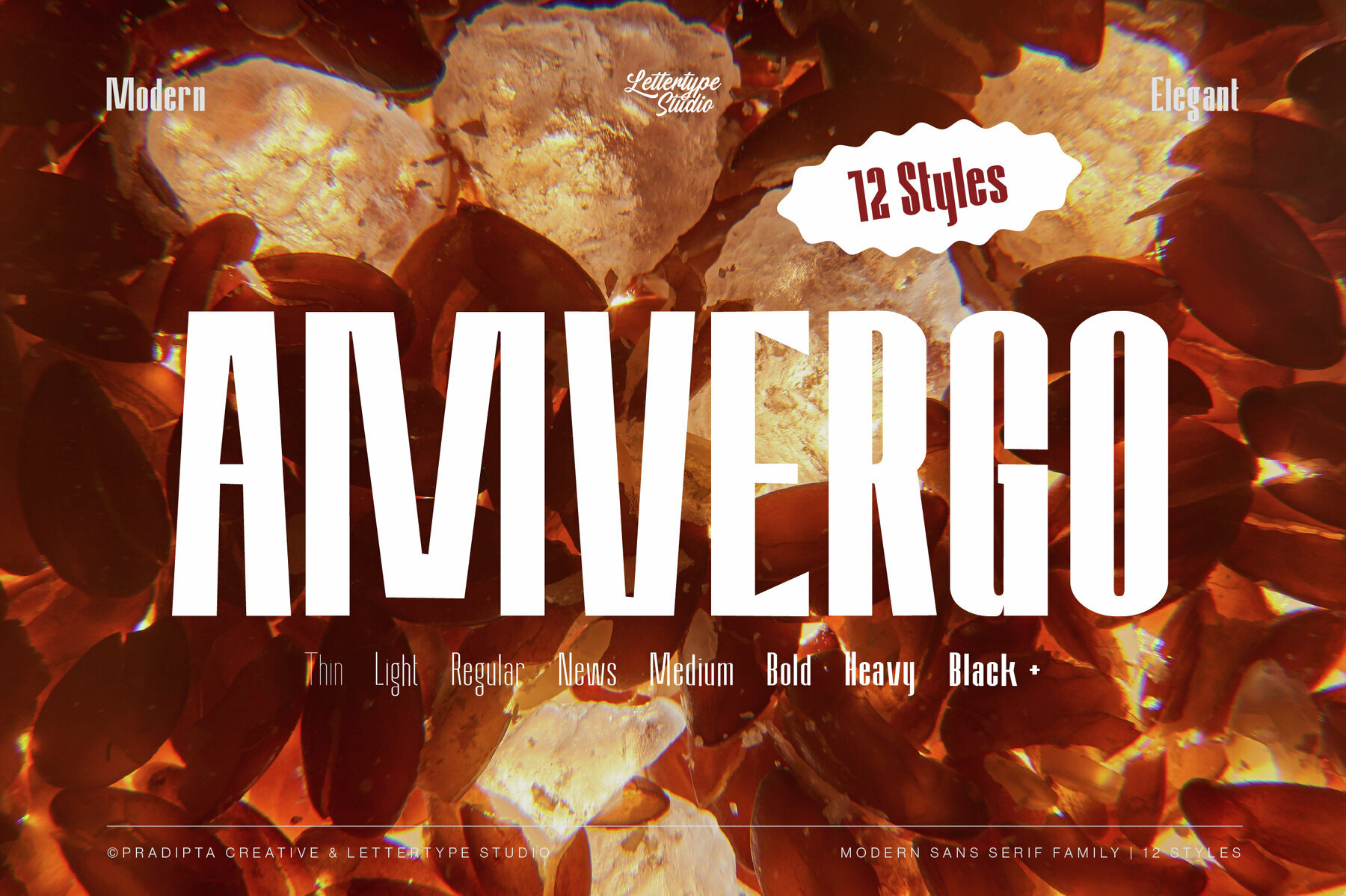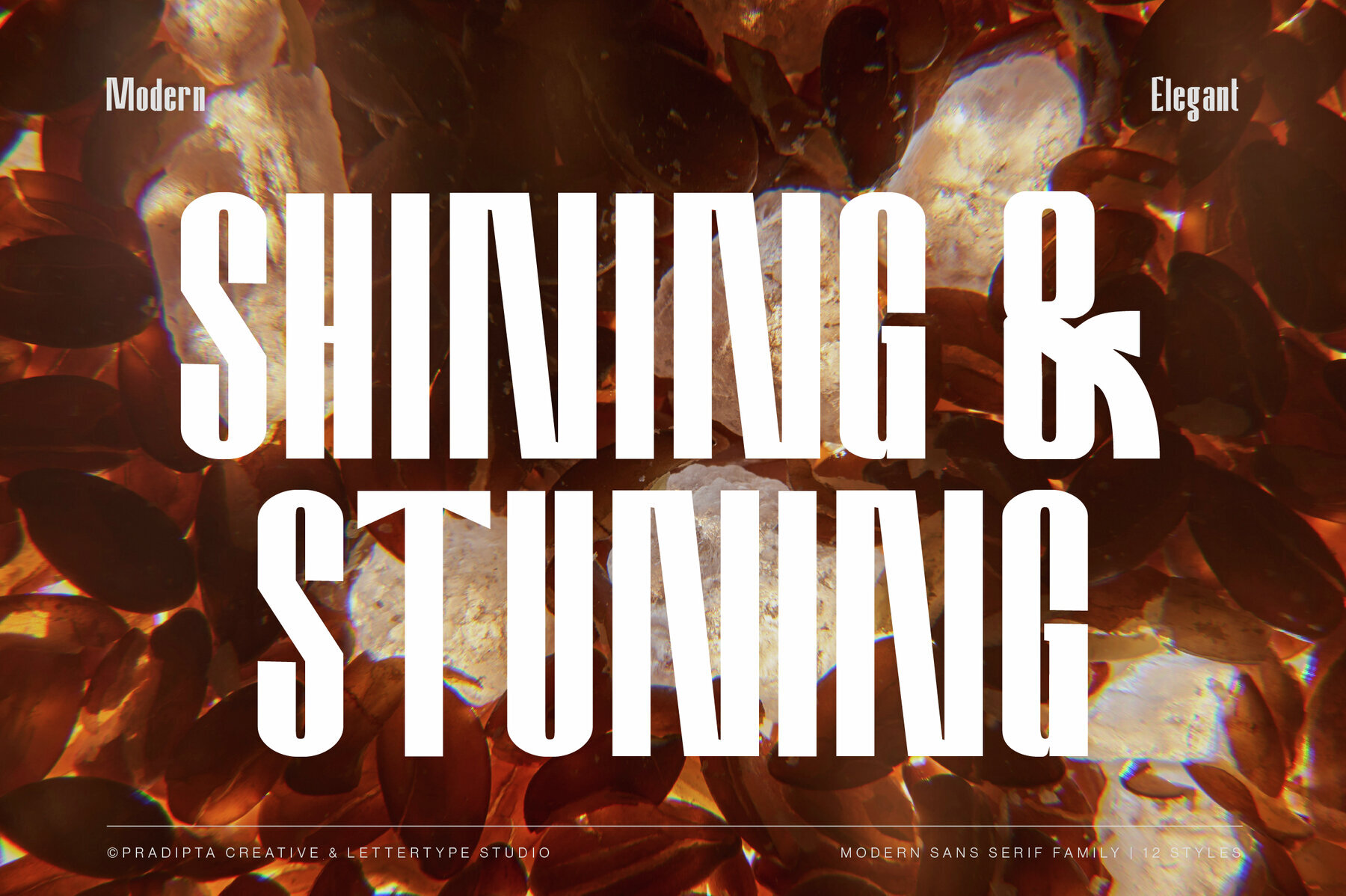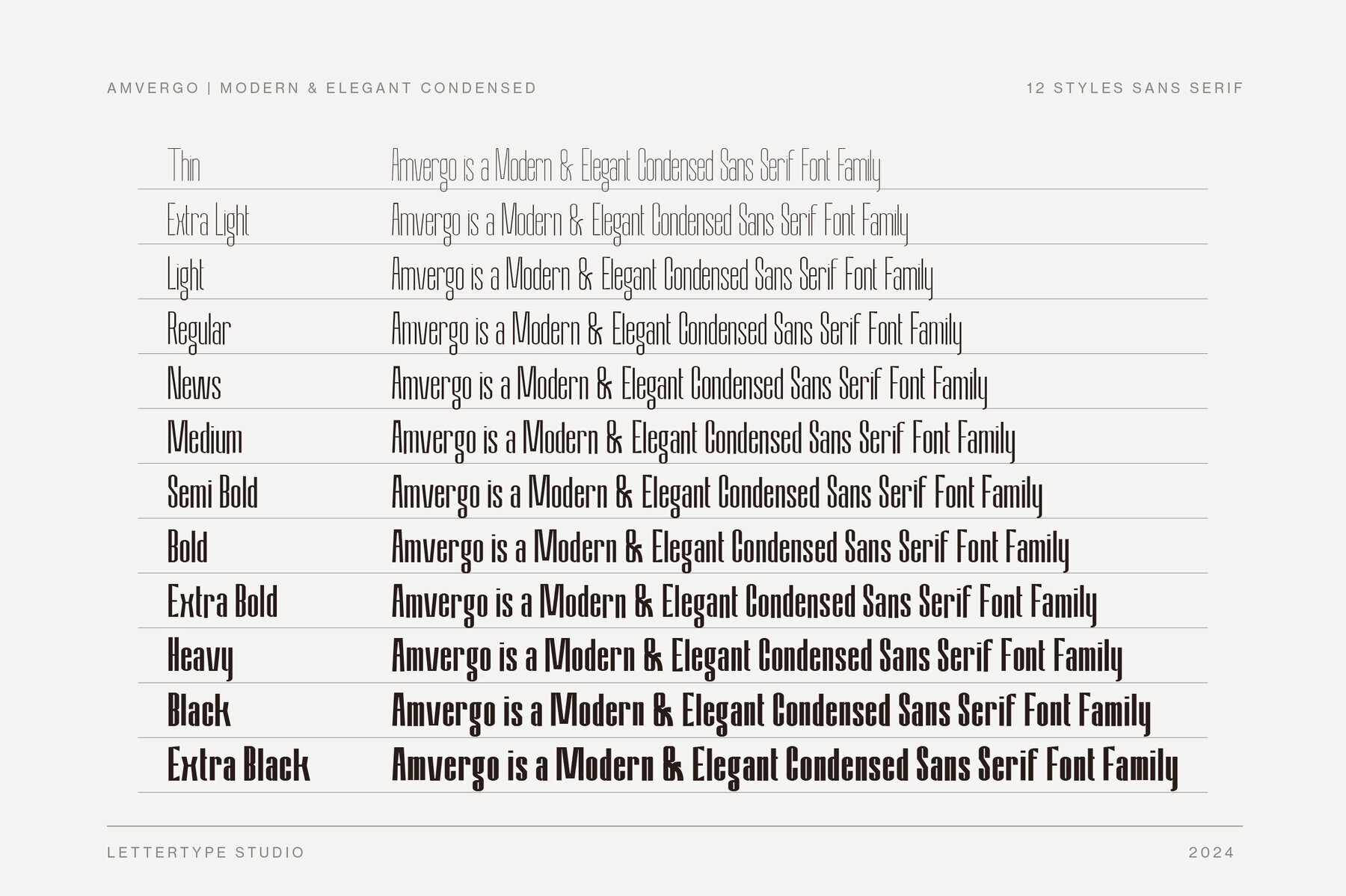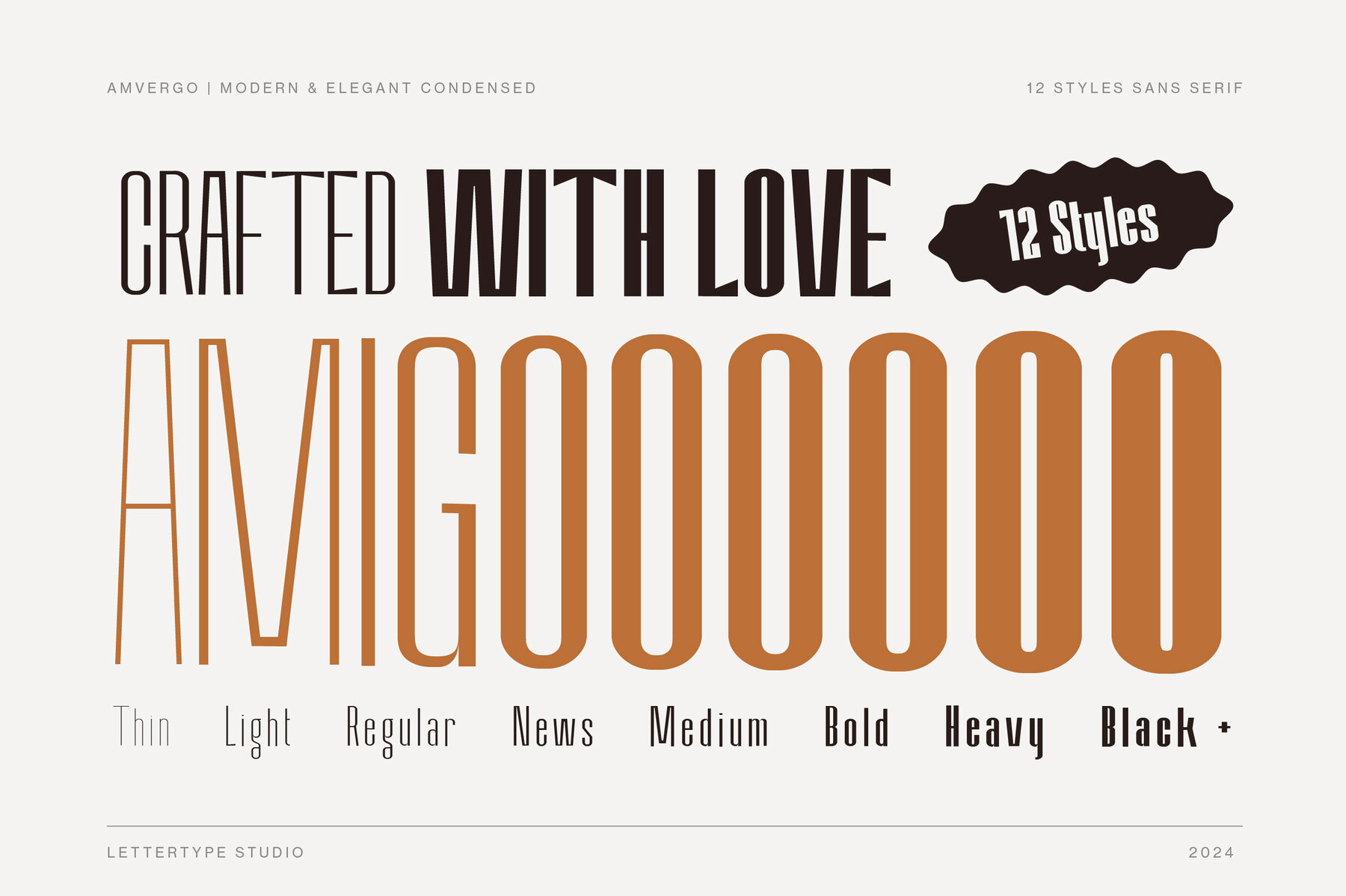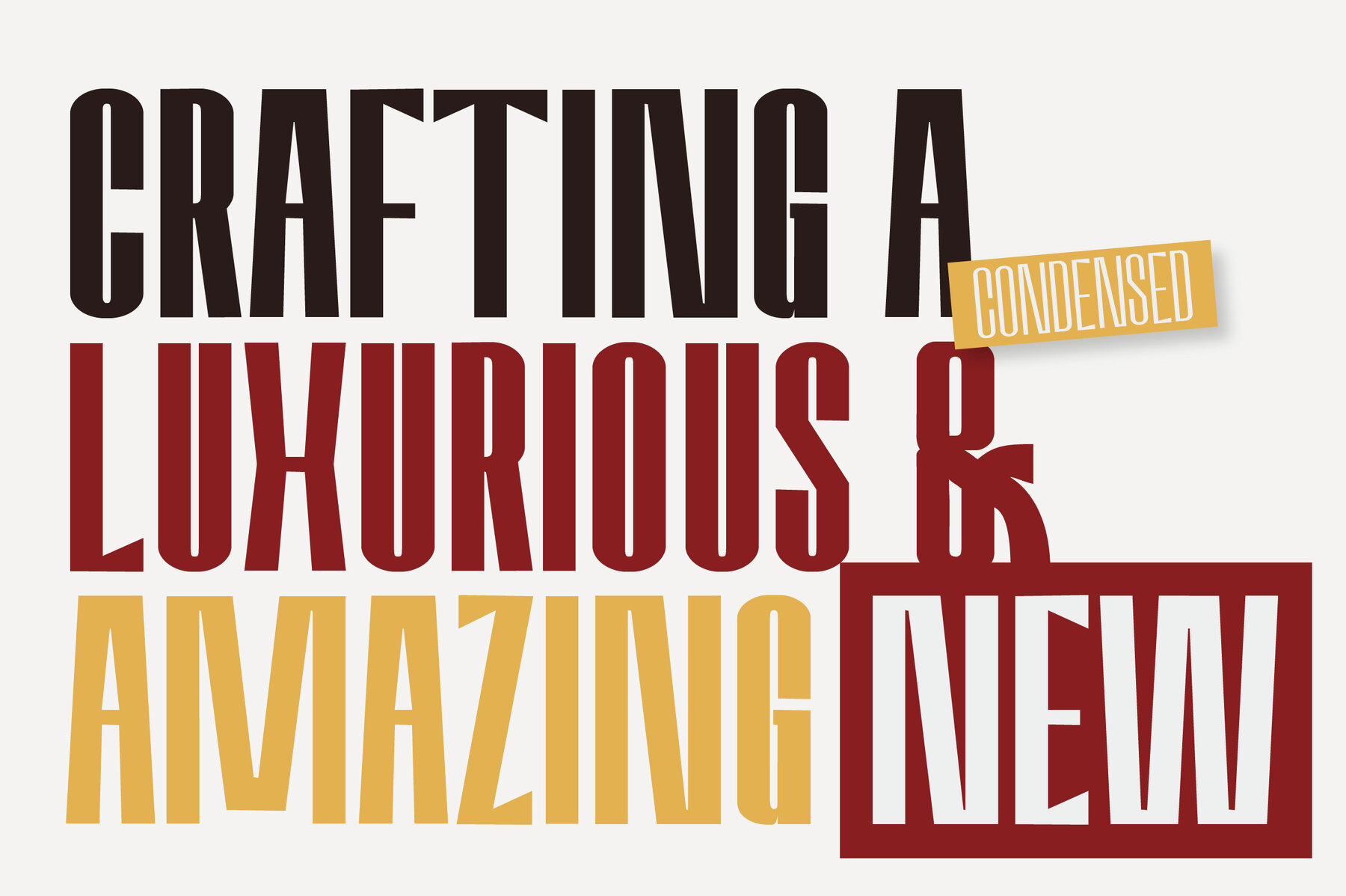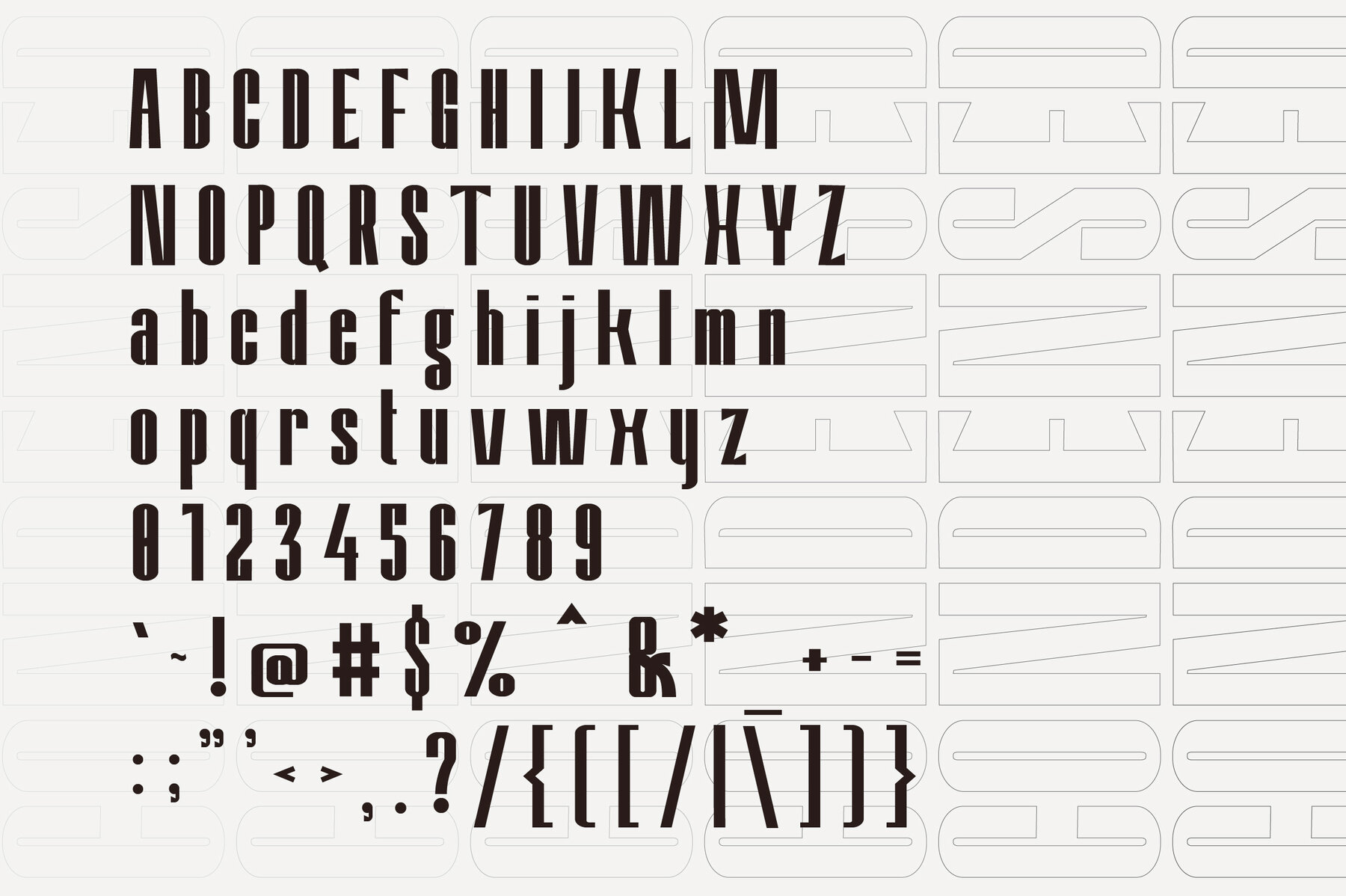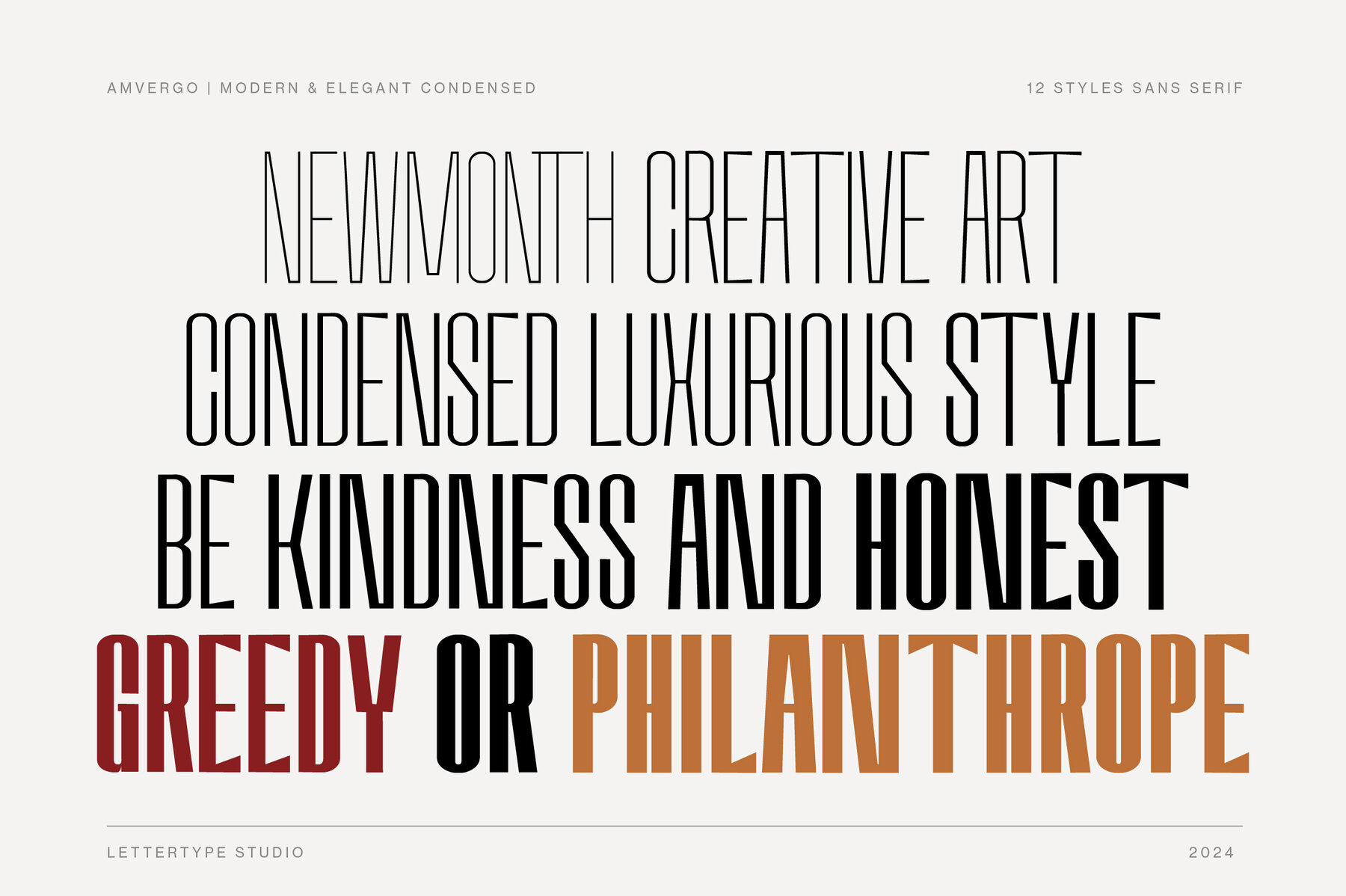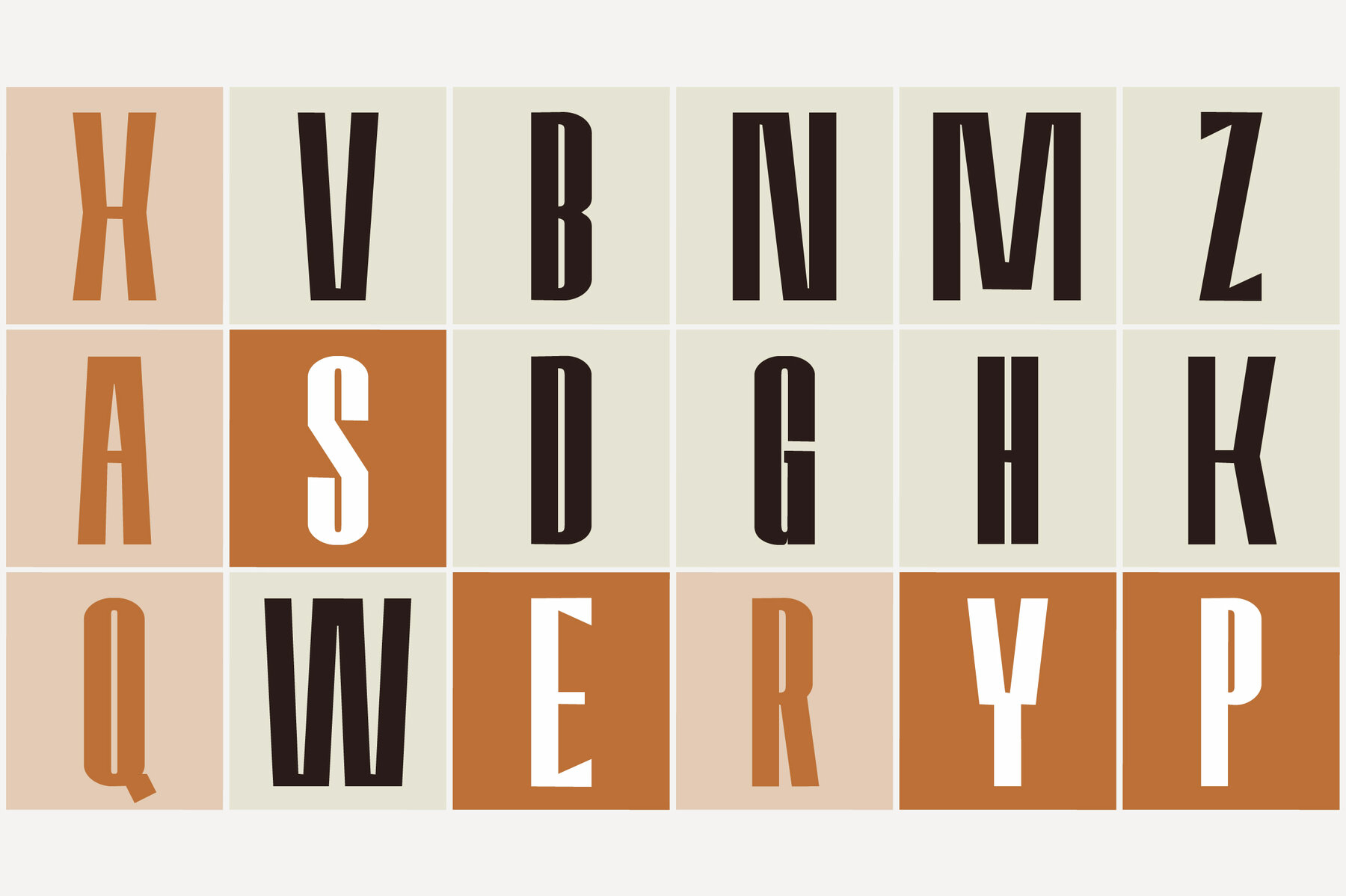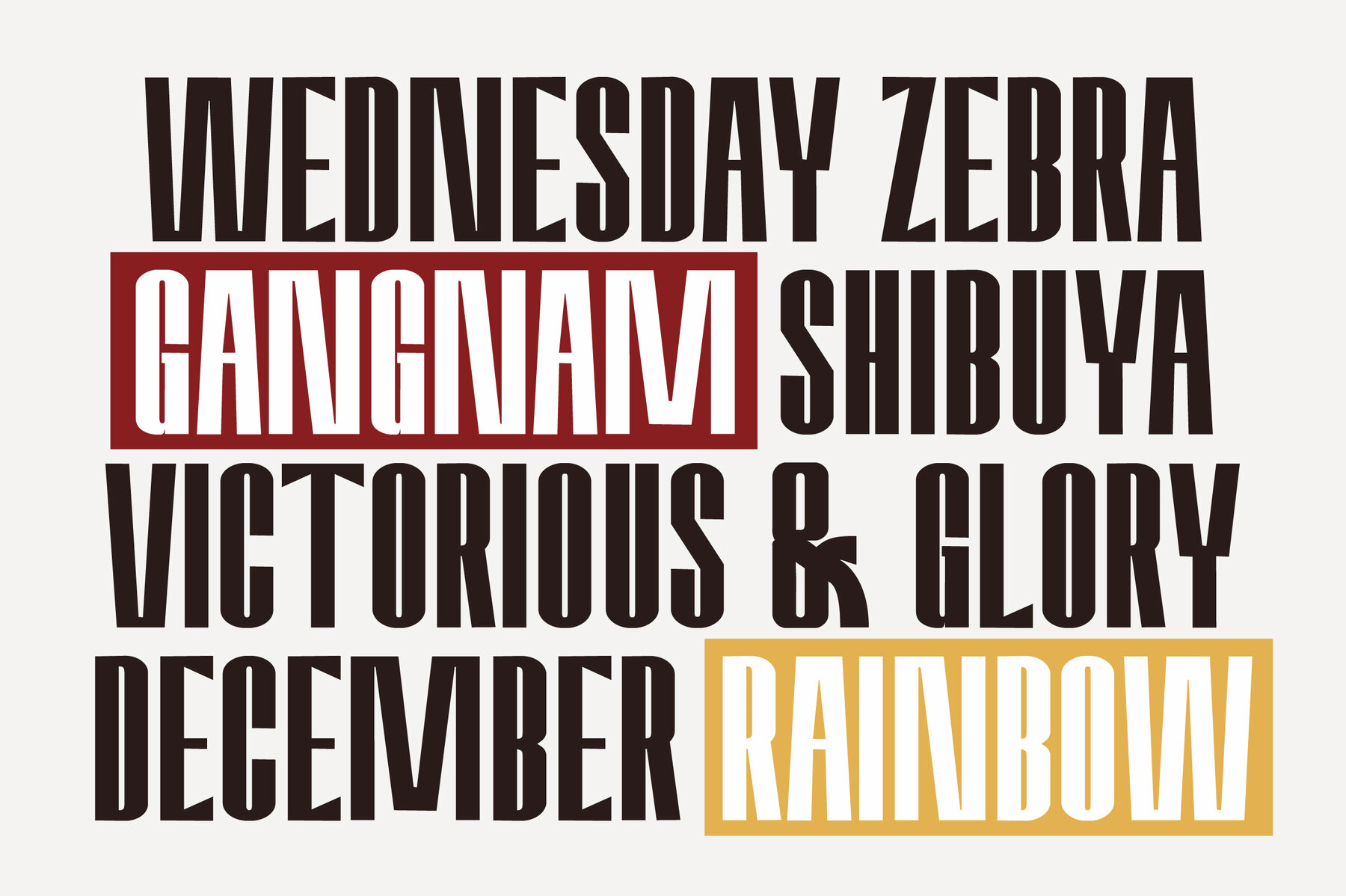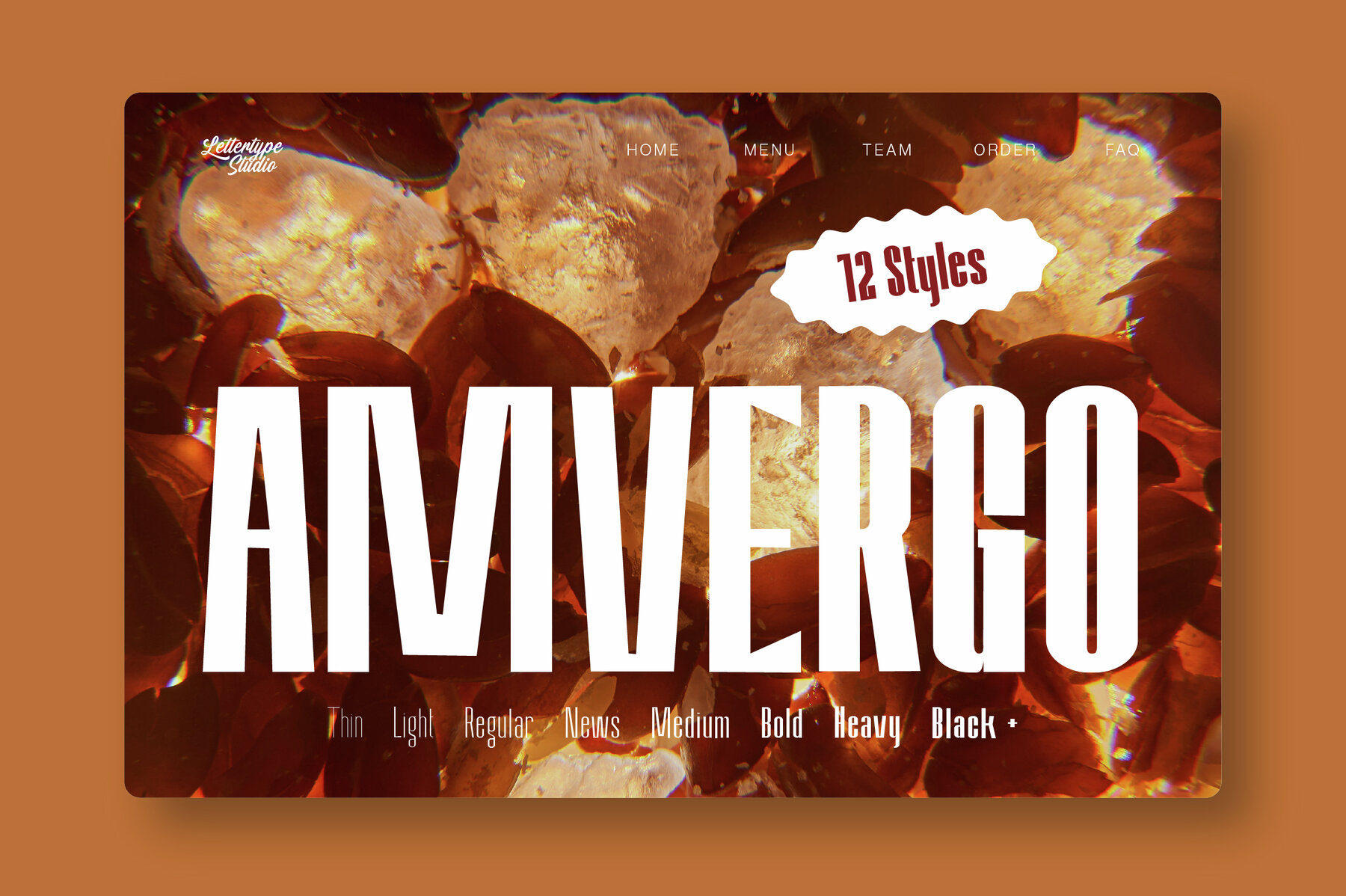
Amvergo Font
Amvergo stands out with its clean lines, condensed forms, and contemporary style, making it ideal for projects that demand clarity and visual impact. The balanced proportions and sharp features offer a modern sensibility, while subtle vintage notes add a thoughtful contrast, making it well-suited for both digital and print applications. Whether used for striking headlines or refined text, Amvergo adapts seamlessly across large and small sizes. The font family includes 12 versatile styles, ranging from thin to extra black, to suit a variety of design needs. With multilingual support and well-developed alternates and ligatures, Amvergo provides creative flexibility for global projects.Amvergo: A Distinctive Condensed Sans-Serif Font Family